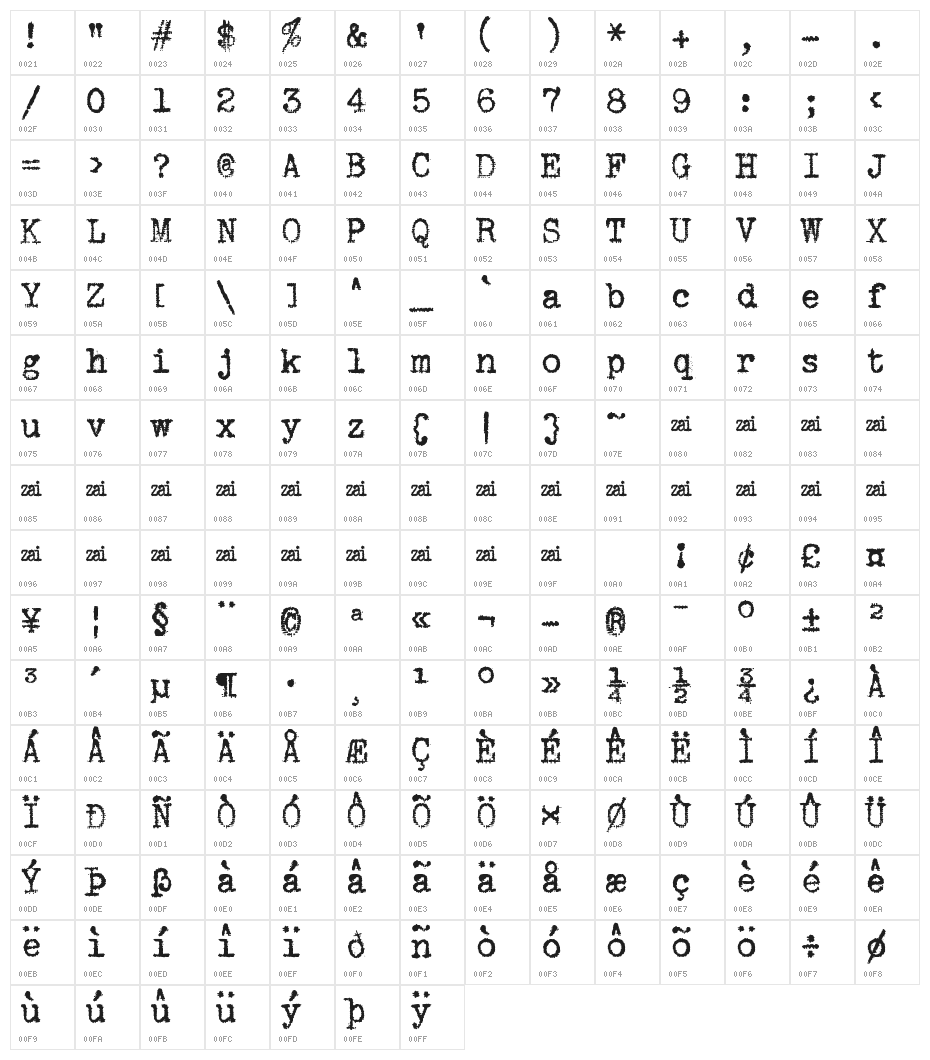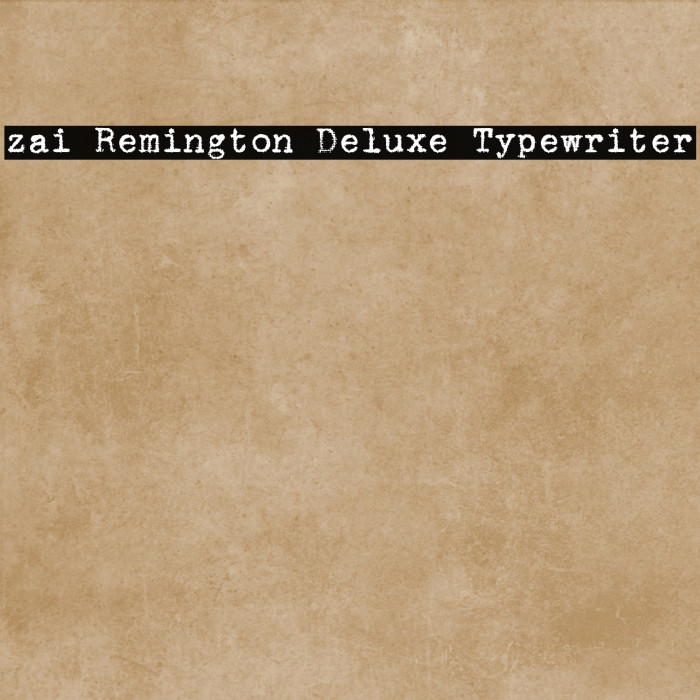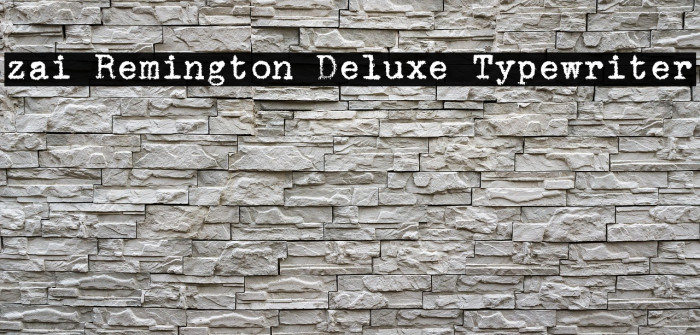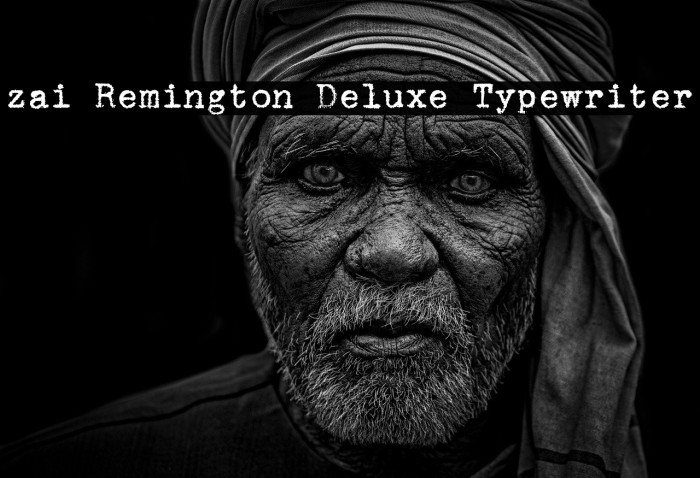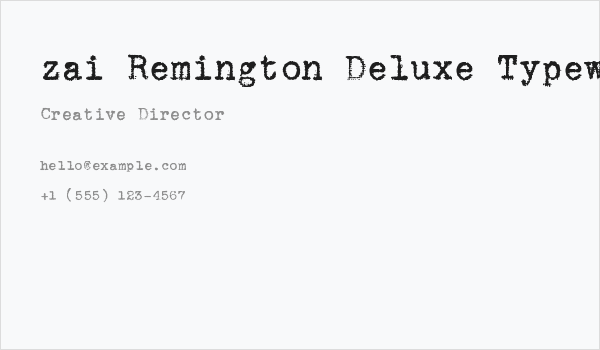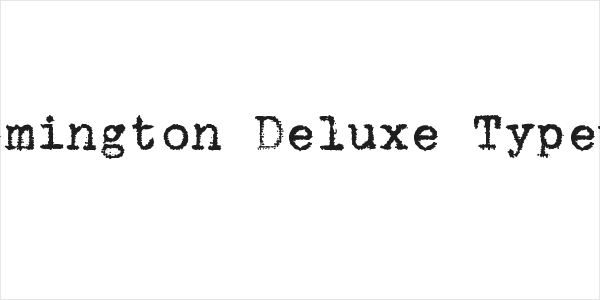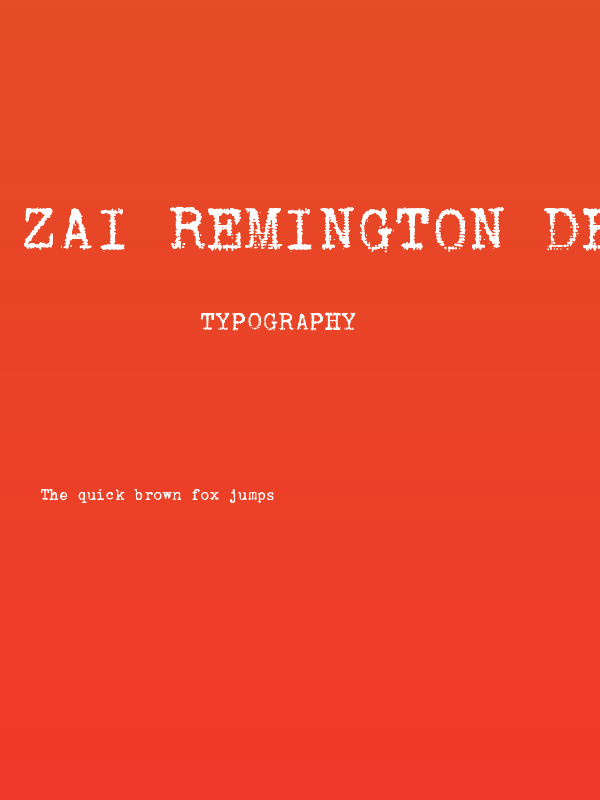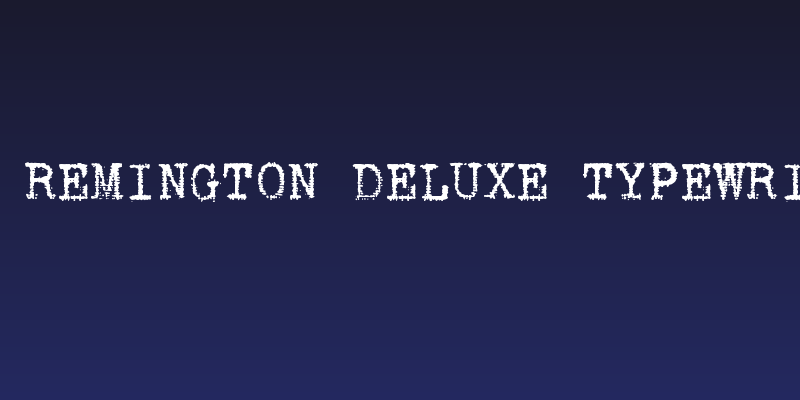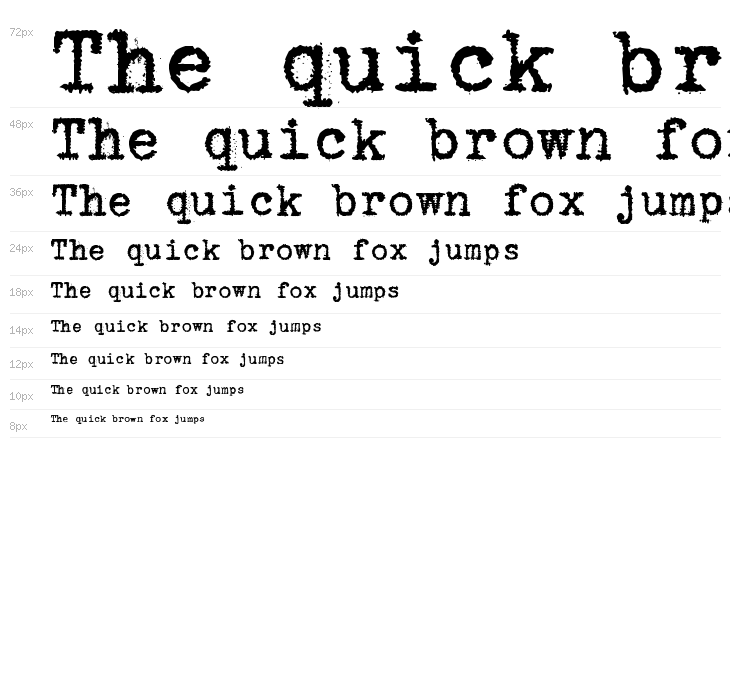
zai Remington Deluxe Typewriter Font
zai Remington Deluxe Typewriter Description
This typewriter-style font features a distinctive, vintage appearance with a textured, distressed look that mimics the effect of ink on paper. The characters are bold and slightly irregular, giving them a handcrafted feel. The uppercase and lowercase letters maintain a consistent style, with rounded edges and a monospaced alignment that is typical of typewriter fonts. The numerals and special characters follow the same aesthetic, ensuring a cohesive look across all glyphs. This font's unique texture and classic typewriter style make it ideal for projects that require a retro or nostalgic touch.
| Use Case | Headlines, Logos, Decorative text |
| Proposed Projects | Ideal for vintage-themed designs, retro posters, typewriter art, and projects requiring a nostalgic touch. |